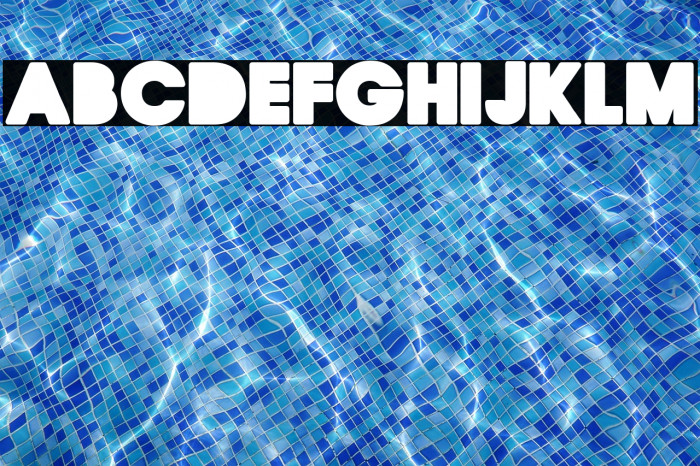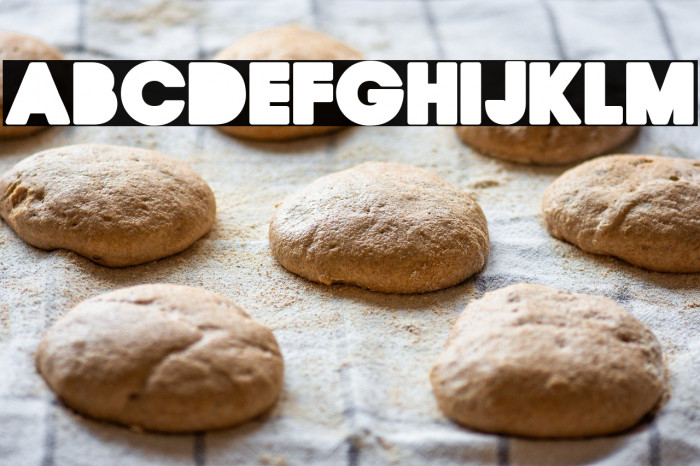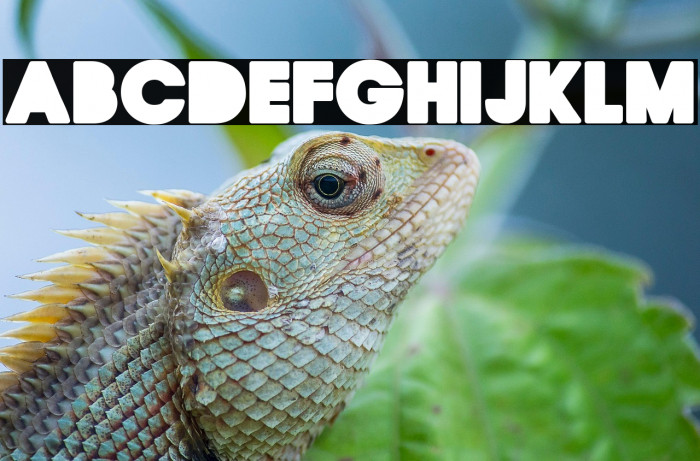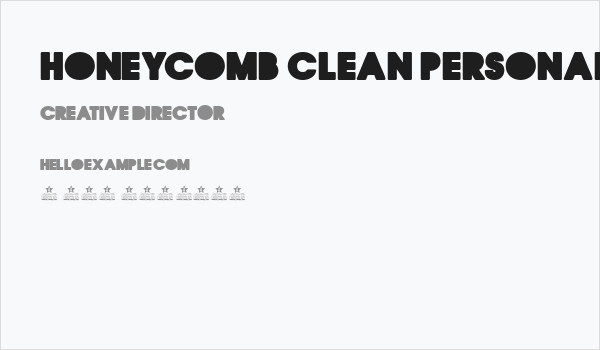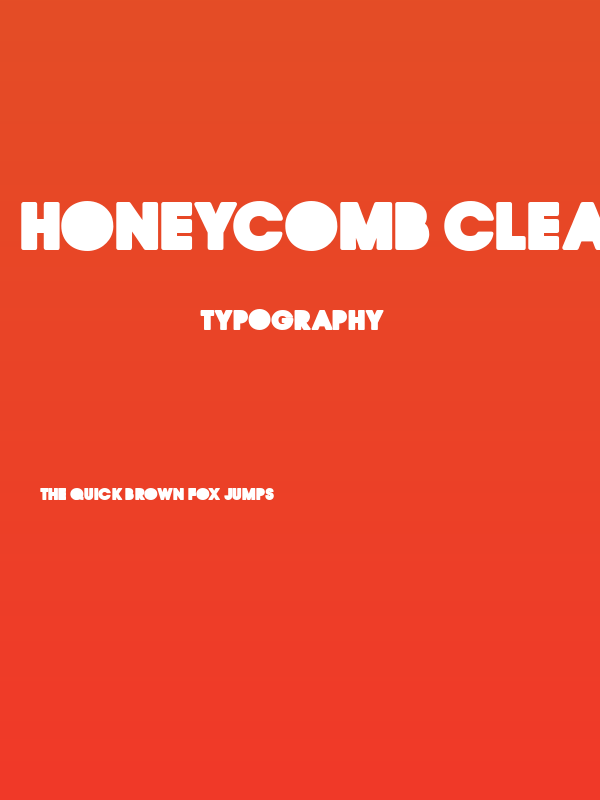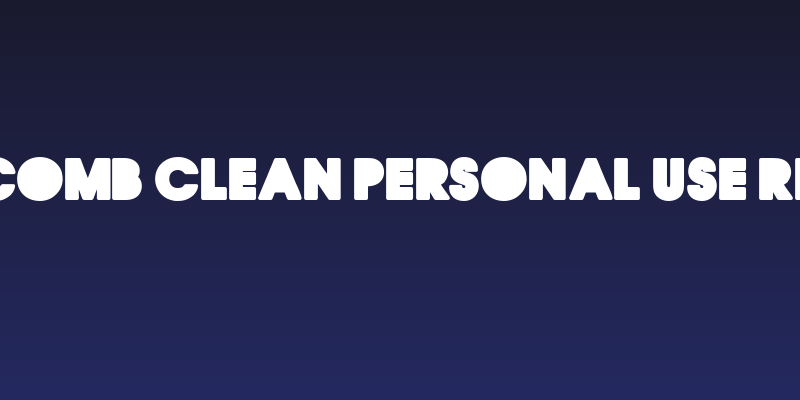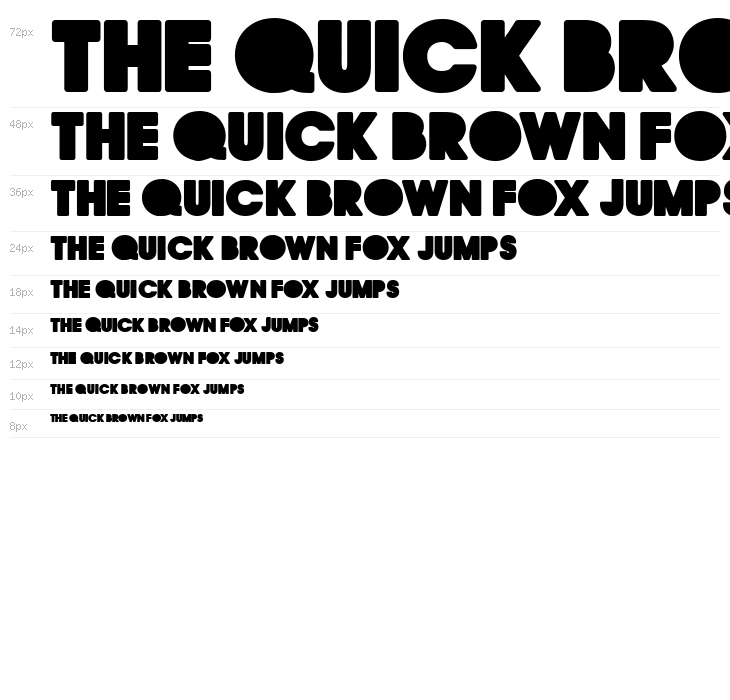
HONEYCOMB CLEAN PERSONAL USE Regular Font
HONEYCOMB CLEAN PERSONAL USE Regular Description
This font features bold, geometric letterforms with a distinctively modern and playful aesthetic. The characters are constructed with thick, uniform strokes that create a strong visual impact. The design incorporates circular and angular elements, giving it a unique and dynamic appearance. The uppercase letters are particularly striking, with a consistent height and width that enhances readability and visual cohesion. This font is ideal for projects that require a bold statement, such as branding, posters, and headlines. Its clean lines and solid structure make it versatile for various design applications.
| Proposed Projects | Branding, posters, headlines, packaging design, and any project requiring a strong visual impact. |